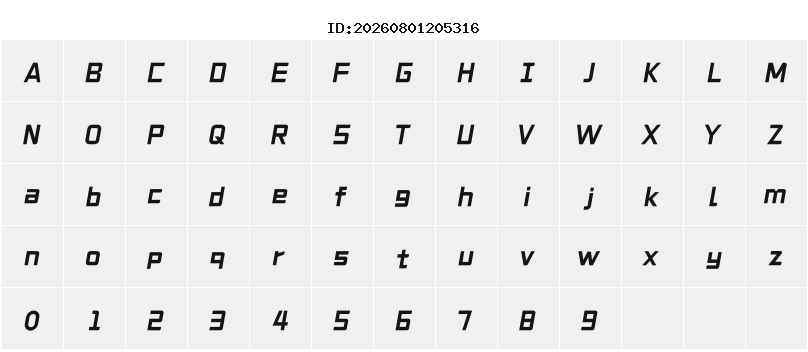
创客贴海浪体 Preview
• Font Name: 创客贴海浪体
• Designer: zqk
• Manufacturer: CKT.CN
About 创客贴海浪体.otf
创客贴海浪体.otf is a modern, elegant sans-serif font designed for ultimate readability and visual harmony. Perfect for branding, headlines, web design, and print materials.